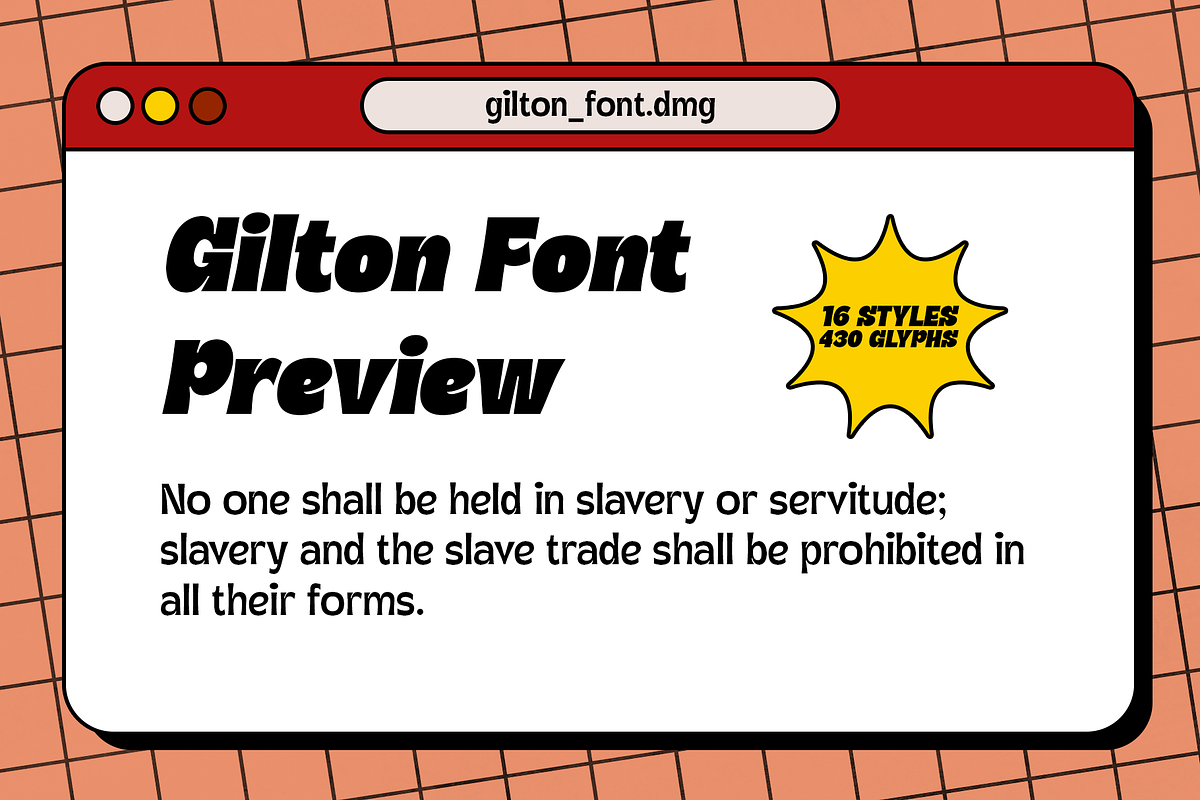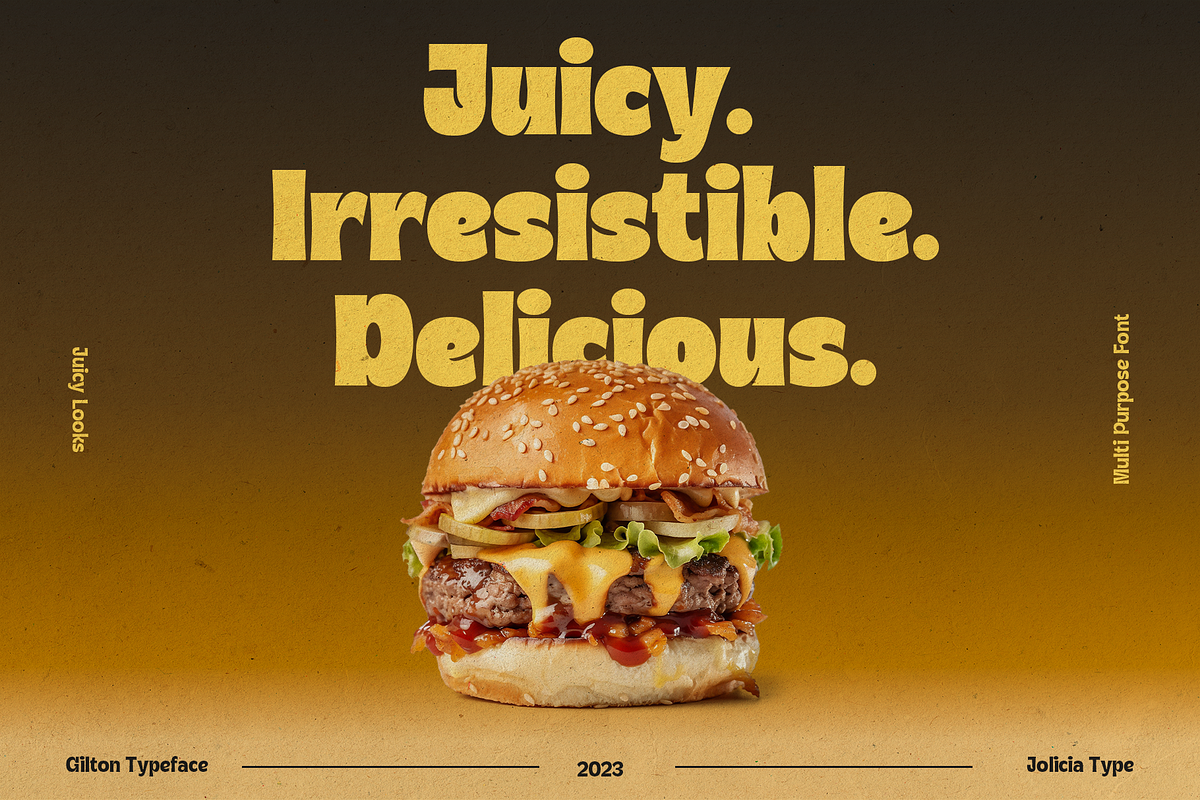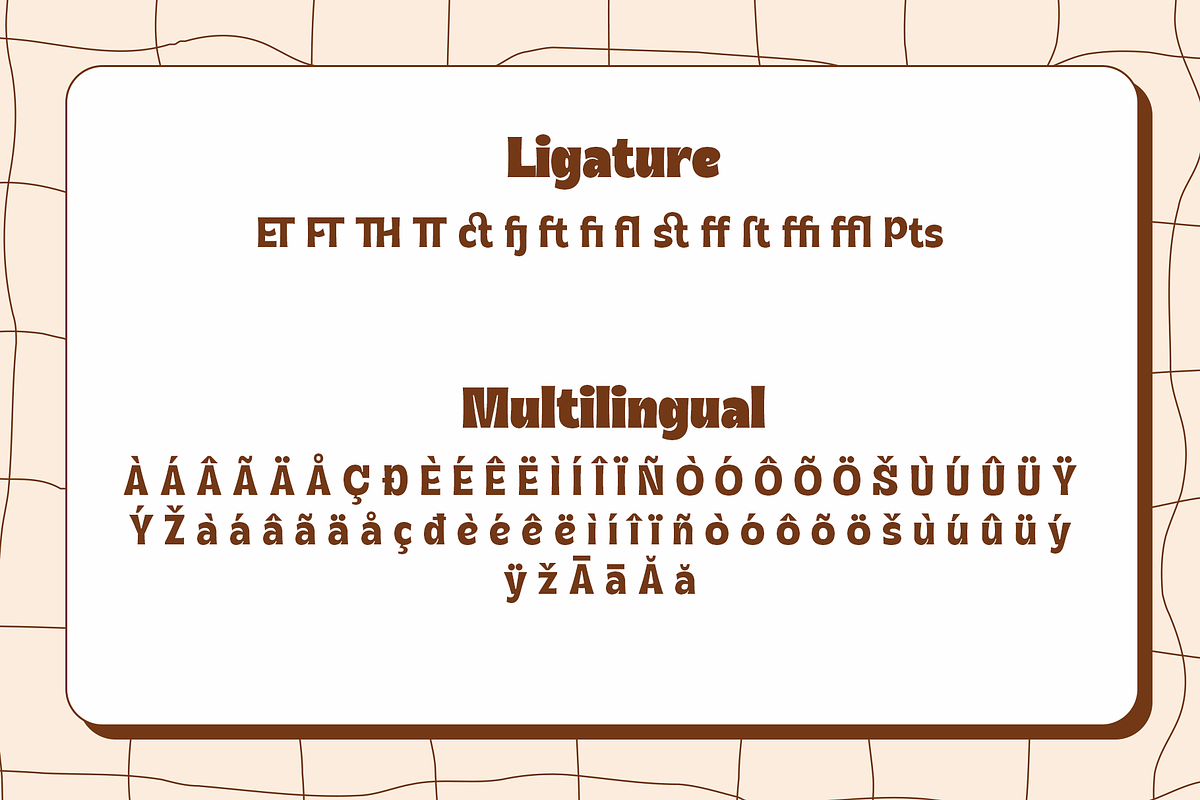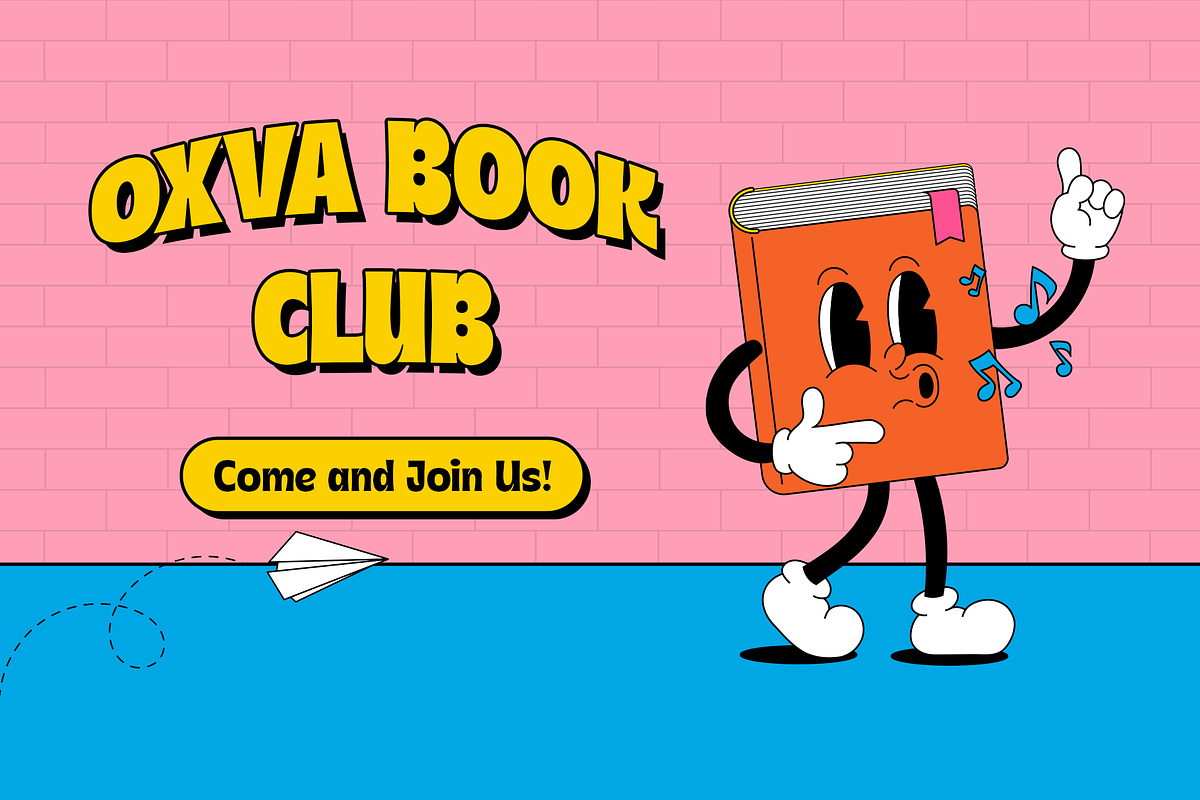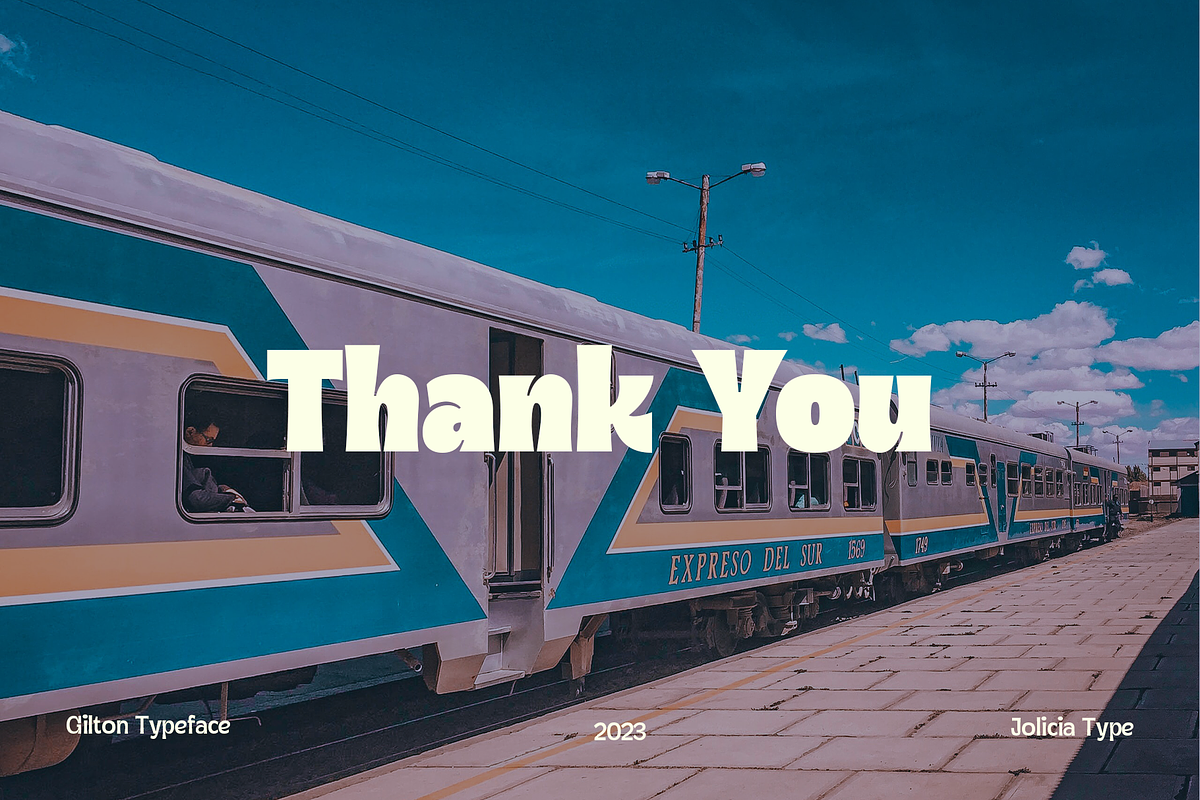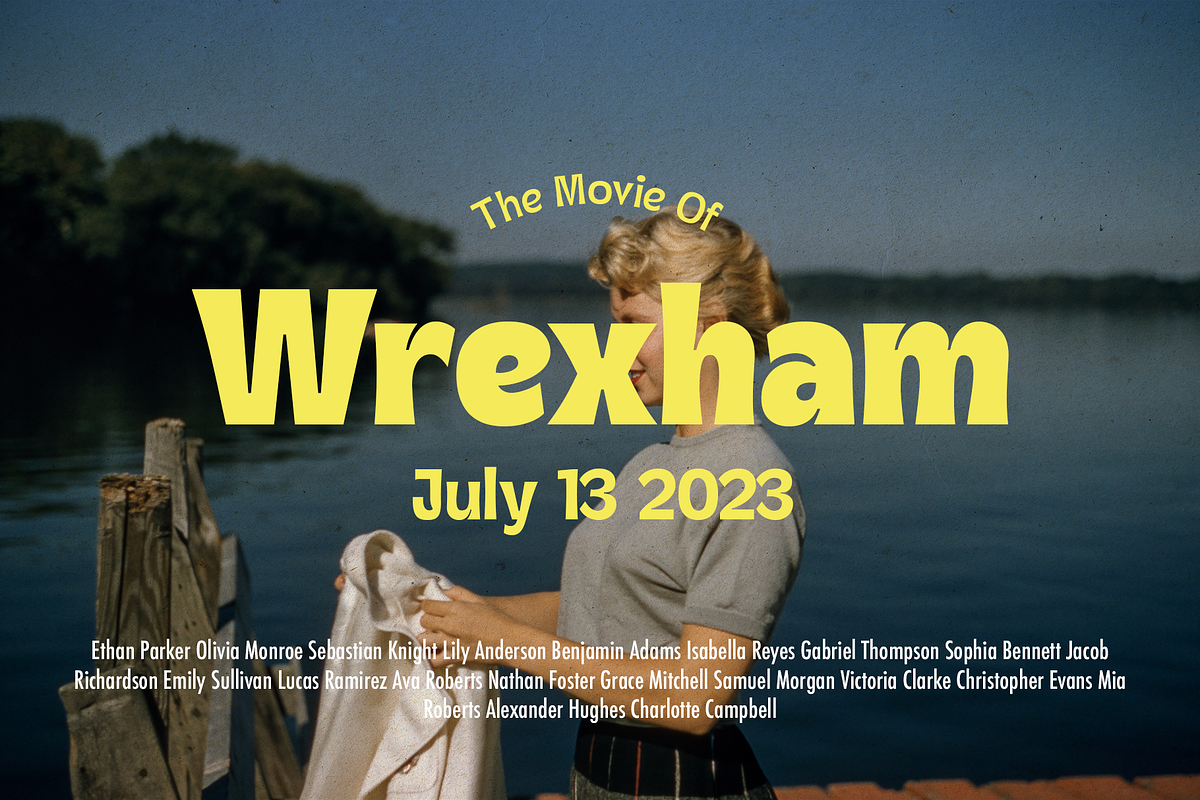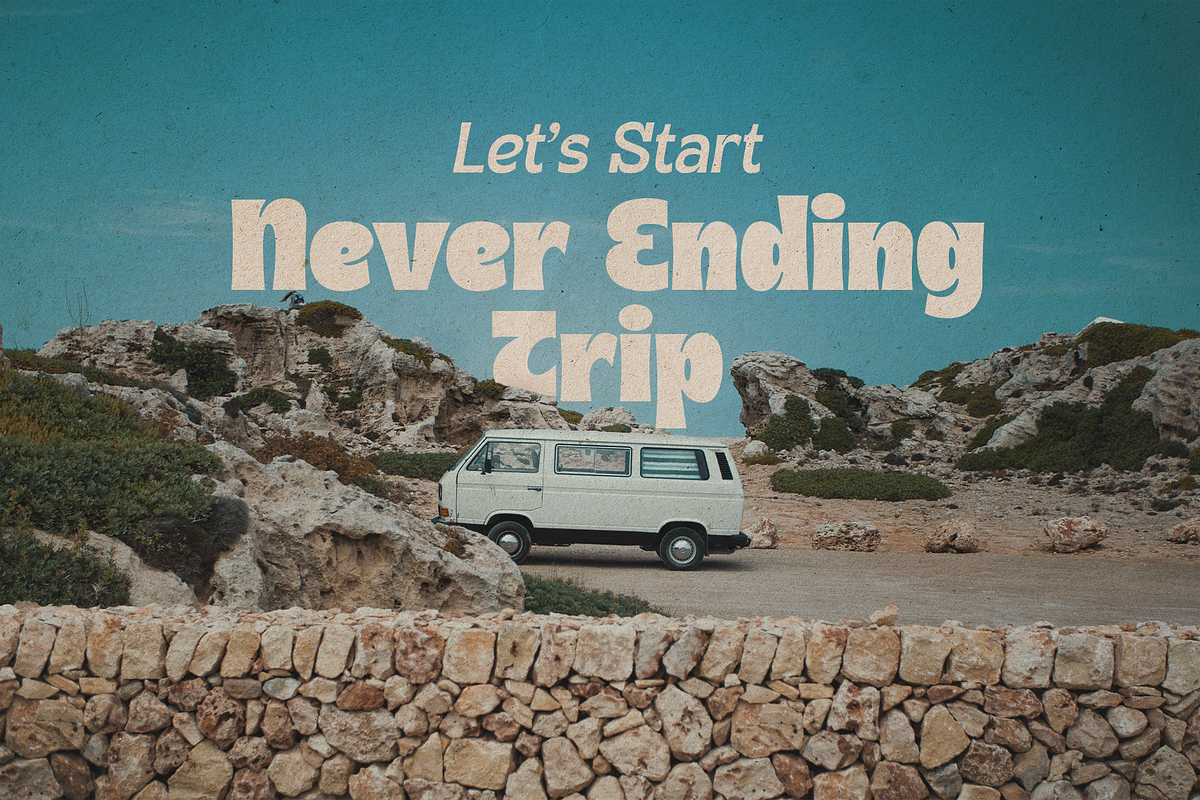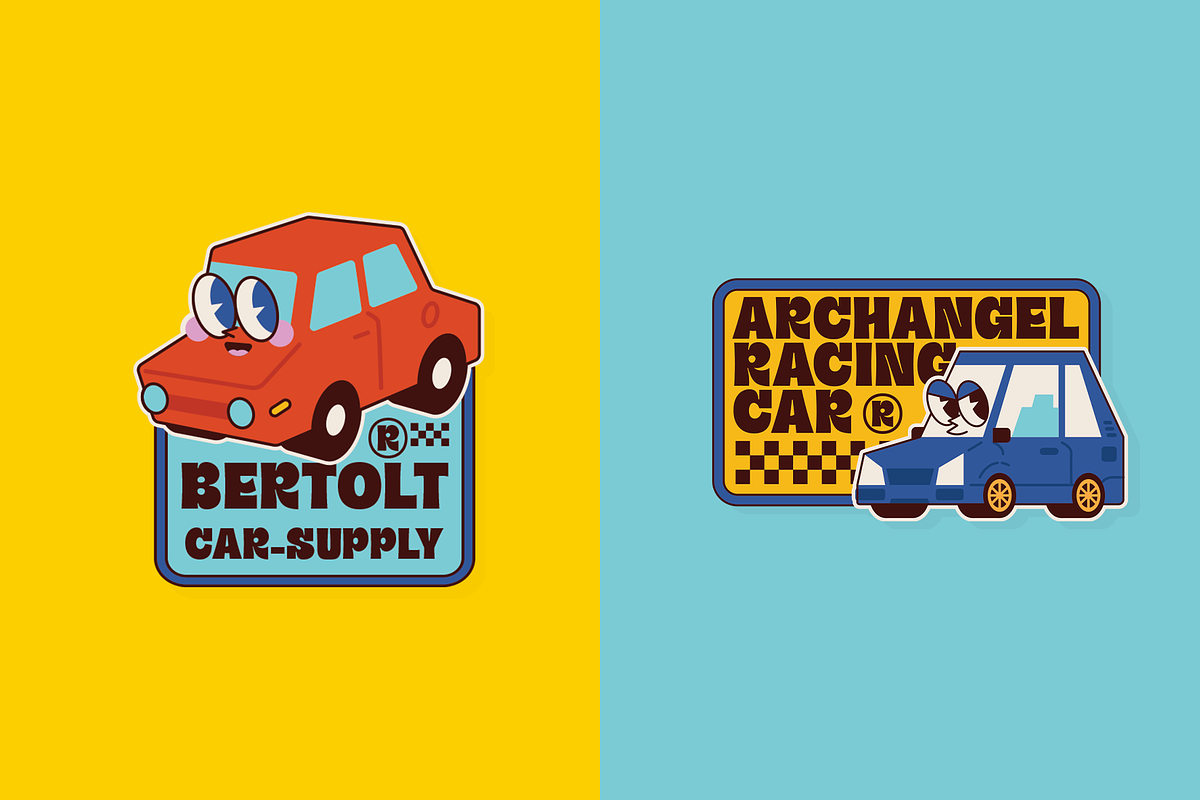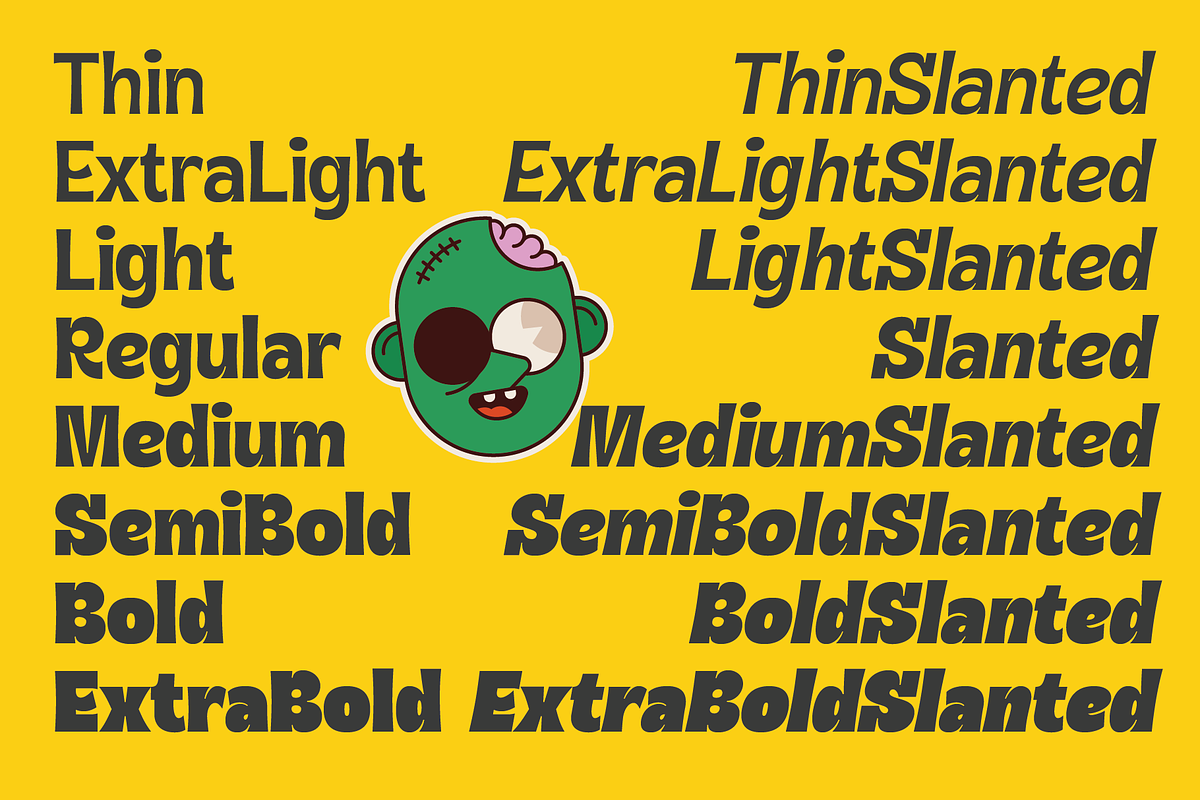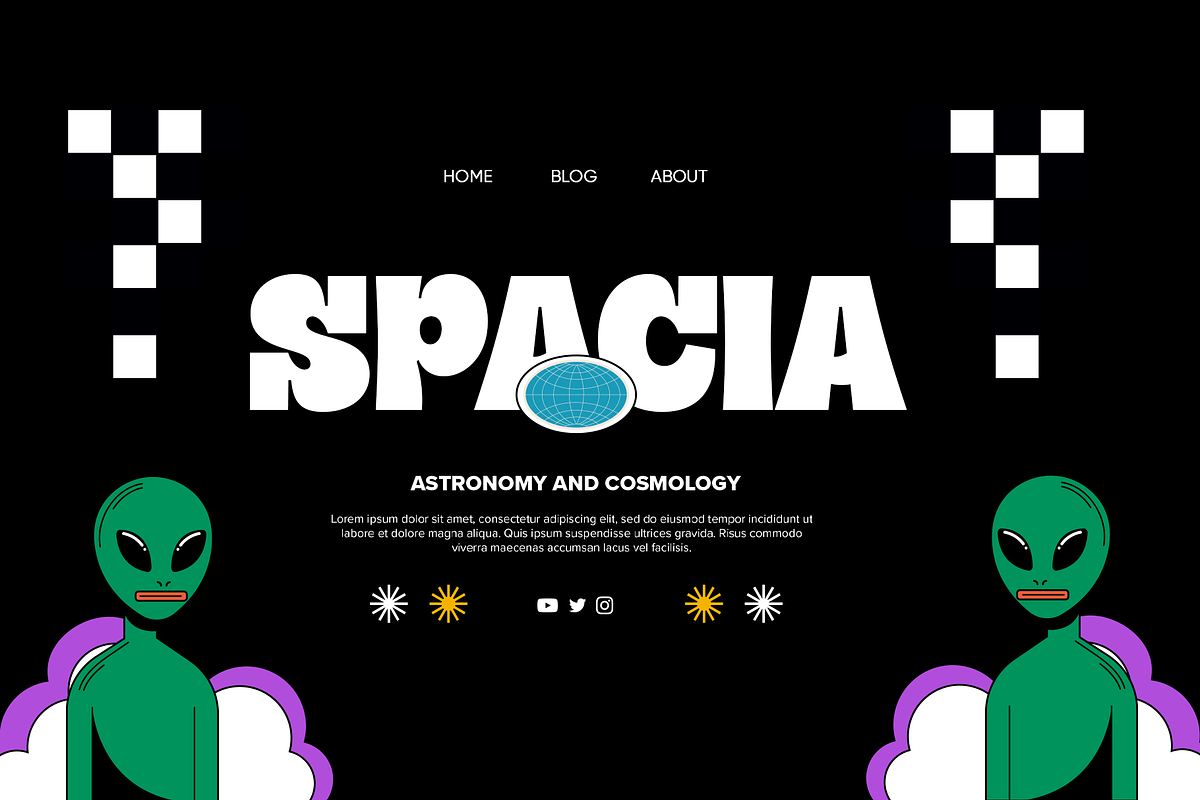
Gilton | Display Font Family
Gilton by Jolicia Type is a display font inspired by retro playful style writing.This font comes with a unique shape where every corner and There are 16 font family for the choice of the desired letter design, Support for 93 languages
This font suitable with your projects such as poster, user interface, magazine, logo, apparel design, etc.